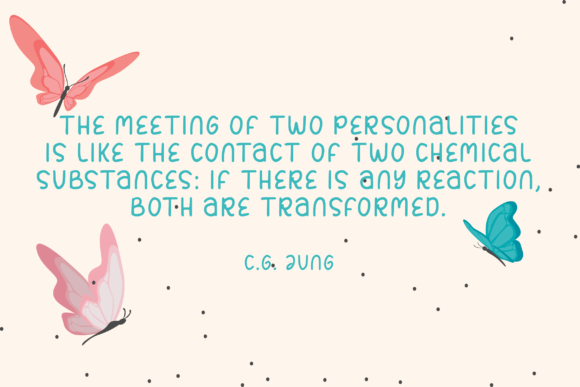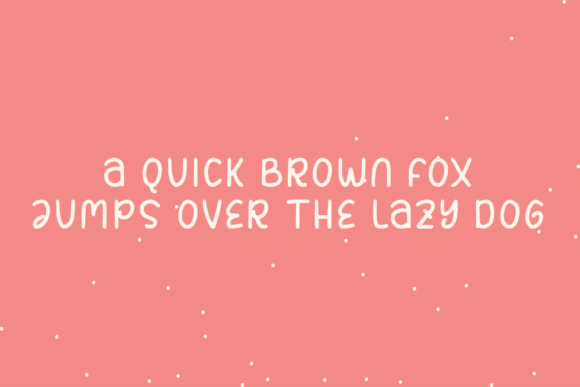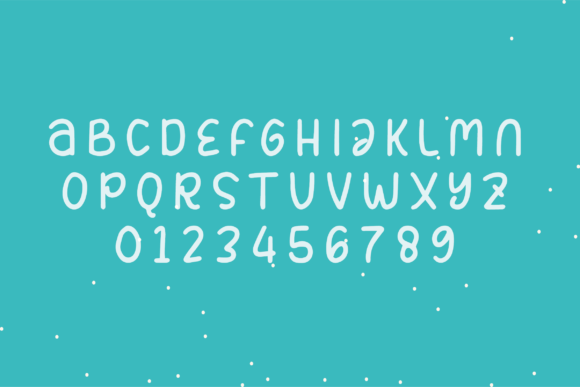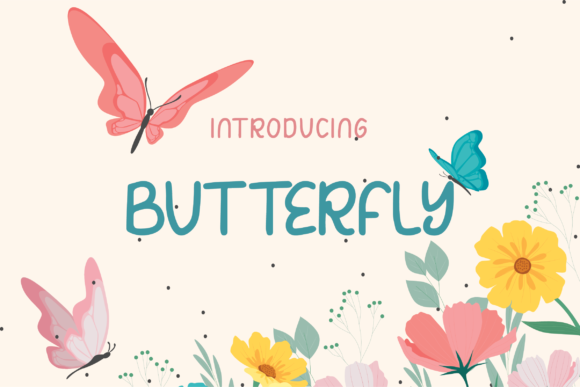
Unleash Your Creativity with the Butterfly Font
Have you ever been rummaging through your stash of crafting supplies, searching for the perfect font to bring your latest project to life? You know the feeling – the thrill of discovering a hidden gem that sparks a burst of creativity and sets your imagination soaring. That’s exactly what the Butterfly Font can do for you.
With its beautiful and attractive handwritten style, the Butterfly Font is the perfect addition to a wide range of crafting ideas, from elegant cards and branding to charming labels and more. Whether you’re a seasoned designer or just starting out, this versatile font is sure to elevate your creations and leave a lasting impression.
So why settle for ordinary when you can add a touch of whimsy and personality to your work with the Butterfly Font? Its unique charm makes it a valuable asset for designers looking to add a personal touch to their projects.
Key Features of Butterfly Font
- Unique Characteristics: Distinctive, whimsical design with flowing curves and delicate lines, ideal for creating eye-catching and elegant typography.
- Language Support: Supports a wide range of languages, including Latin, Cyrillic, and Greek scripts, making it a versatile font for global designs.
- Kerning and Ligatures: Includes advanced kerning and ligature features to ensure smooth text rendering and a polished appearance.
- Customization Options: Offers adjustable font weights, styles, and sizes to allow for tailored designs and creative freedom.
Designer Review: Butterfly Font
Overall, I’m a bit torn on the Butterfly Font. While it has some nice qualities, there are also some drawbacks that make it not entirely suitable for all projects.
- ✨ Unique and whimsical feel: The Butterfly Font has a playful, dreamy quality that’s perfect for children’s books, greeting cards, or any project that needs a touch of magic.
- ✨ Nice line variation: The font’s lines are carefully crafted to give it a sense of movement and fluidity, making it more visually appealing.
- ✨ Good for display text: The Butterfly Font is best used for headings and titles, where its unique style can shine.
- ⚠️ Limited legibility: At smaller font sizes, the Butterfly Font can become difficult to read, which may limit its use in body text.
- ⚠️ Not ideal for body text: The font’s irregularities can make it hard to read for extended periods, which may not be suitable for longer texts or articles.
- ⚠️ May not be suitable for digital use: The font’s unique style may not translate well to digital platforms, where clarity and legibility are crucial.
Overall, the Butterfly Font is a beautiful, eye-catching font that’s perfect for projects where its whimsical feel can shine. However, it may not be the best choice for projects that require clear, readable body text.
To get the most out of the Butterfly Font, use it sparingly and strategically. Pair it with solid-colored backgrounds to make it stand out, and use it in headings or titles to add visual interest. You can also experiment with different font sizes and colors to create a unique look.
The Butterfly Font is ideal for use in wedding invitations, baby shower invitations, and other celebratory designs. It’s also a great choice for adding a touch of whimsy to social media graphics, blog posts, and other digital content.